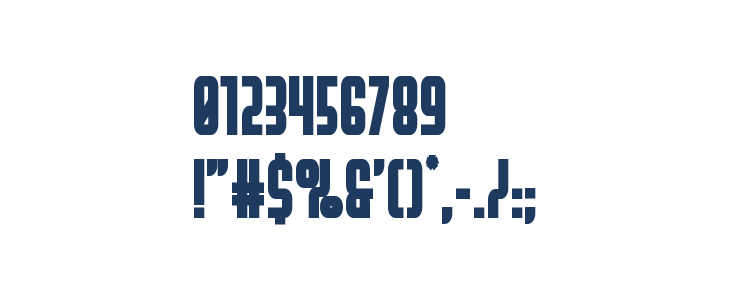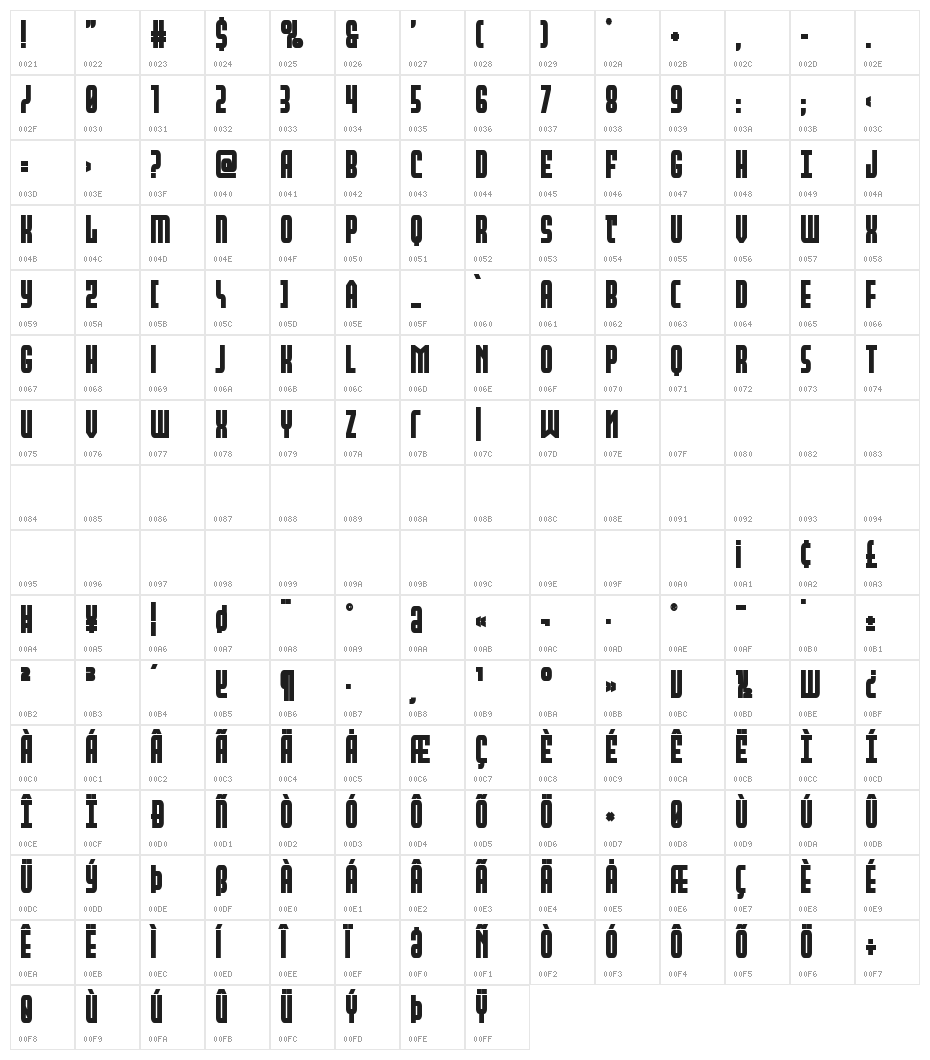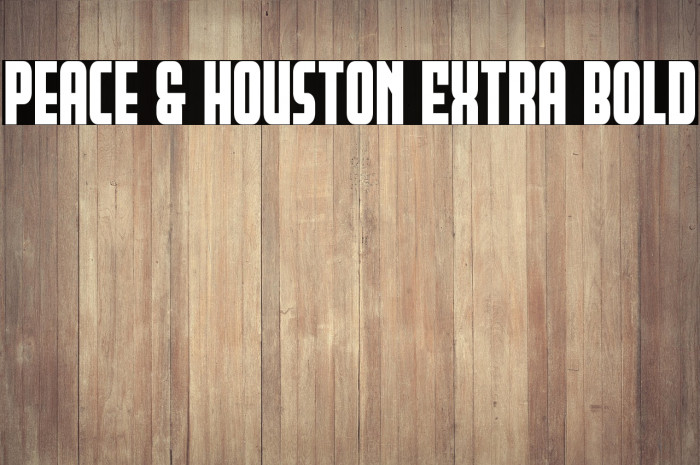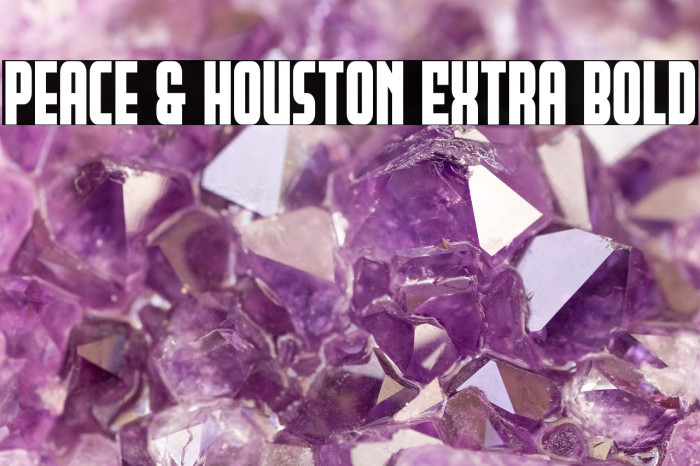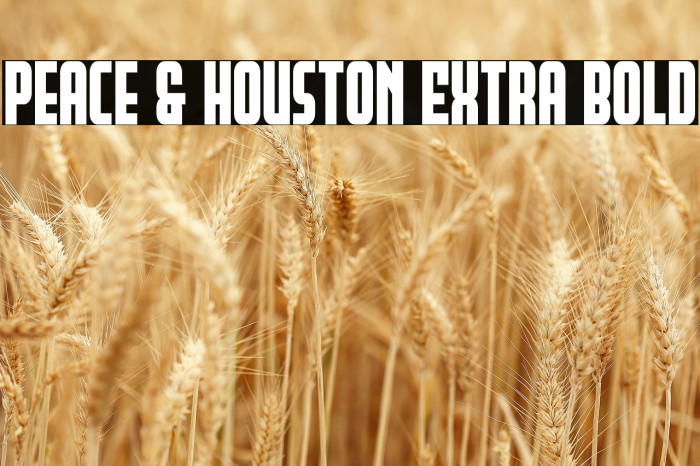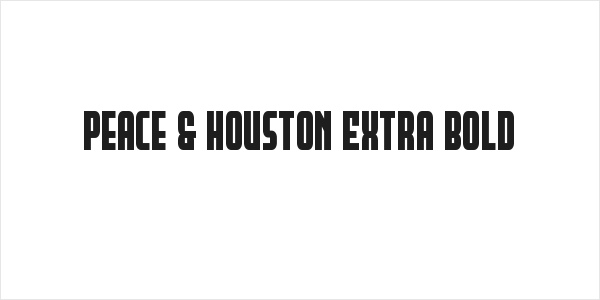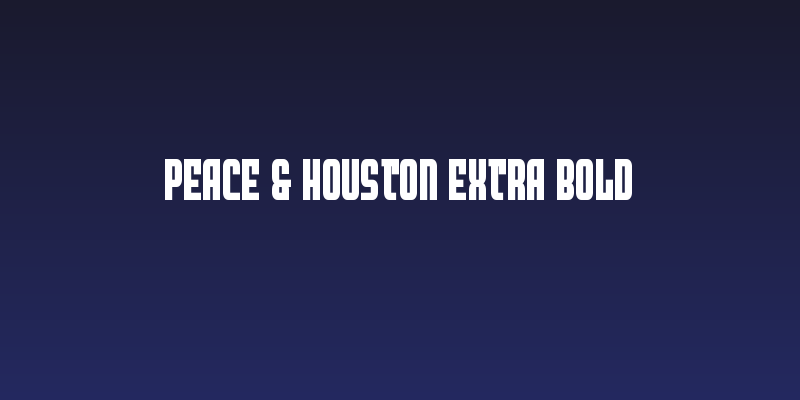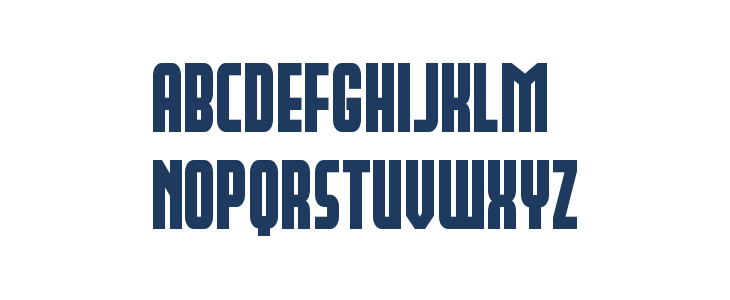
Peace & Houston Extra Bold Font
Peace & Houston Extra Bold Description
This font features a bold and impactful design, characterized by thick, block-like letters that convey strength and modernity. The uppercase and lowercase letters are consistent in their robust appearance, making them ideal for attention-grabbing headlines. The numerals and special characters maintain the same bold style, ensuring uniformity across all text elements. The font's geometric structure and clean lines give it a contemporary feel, while the lack of serifs adds to its modern aesthetic. The overall design is both assertive and stylish, making it suitable for a variety of creative projects.